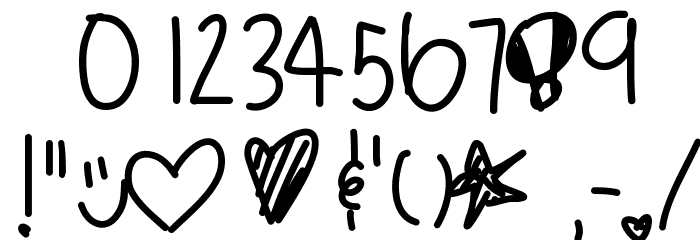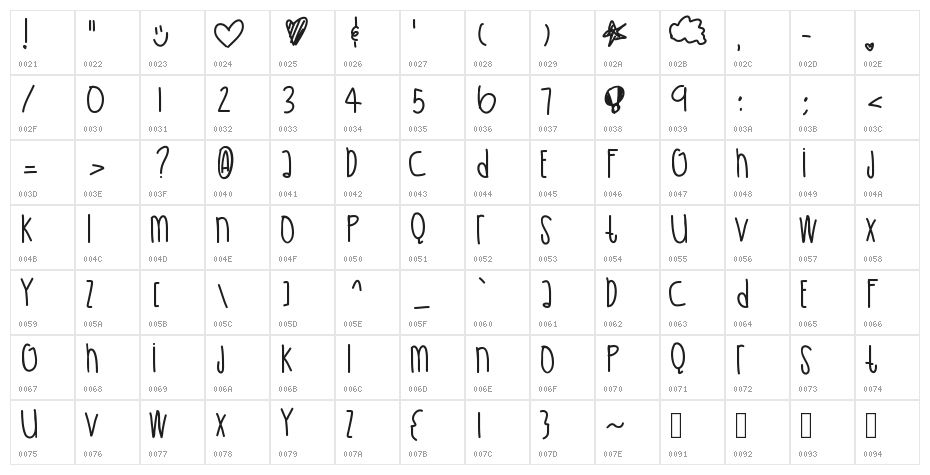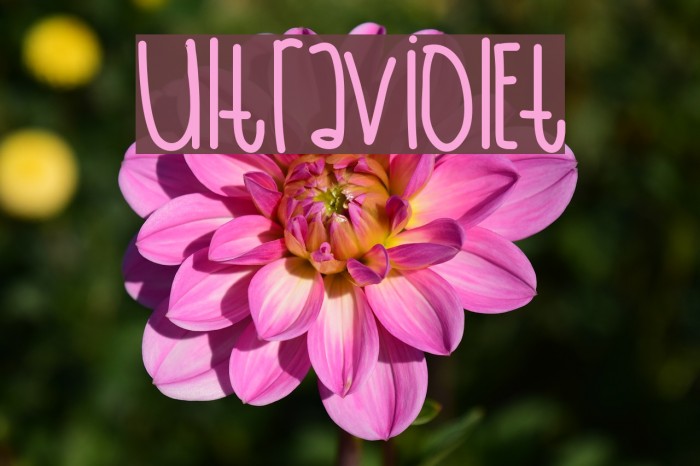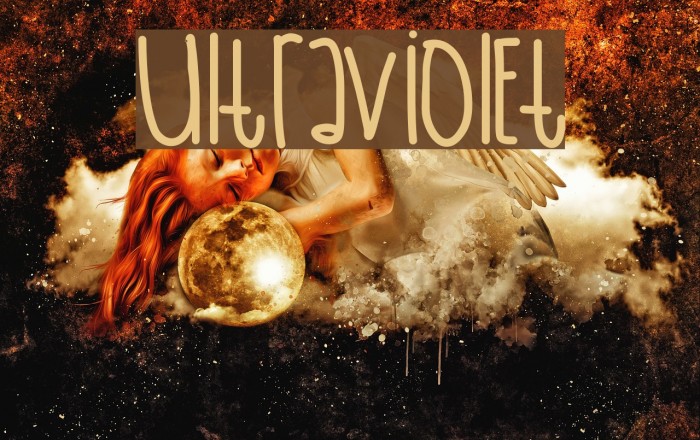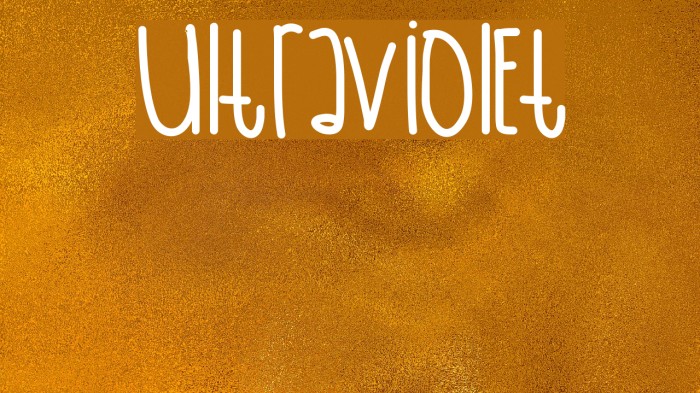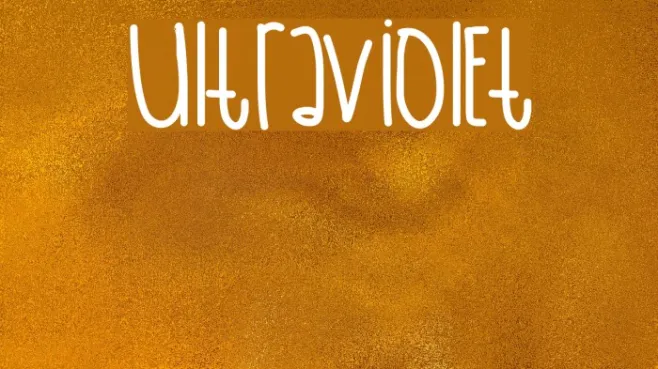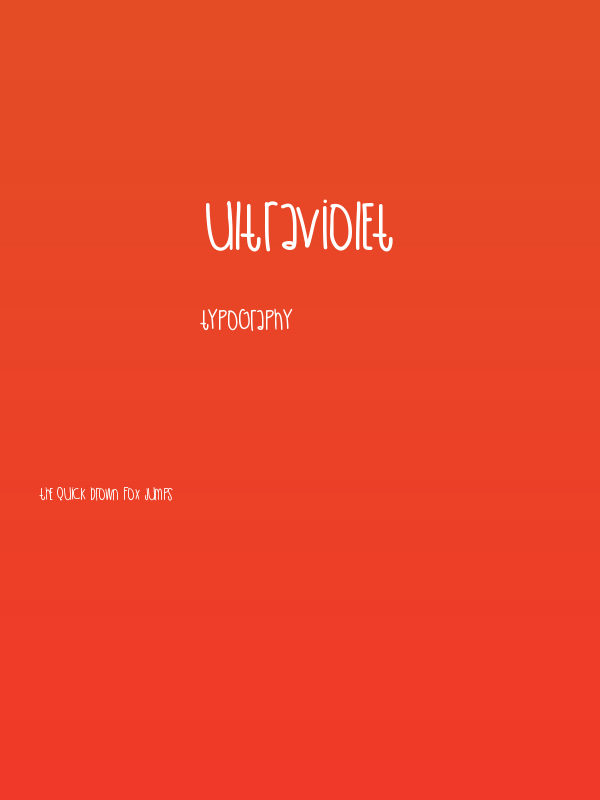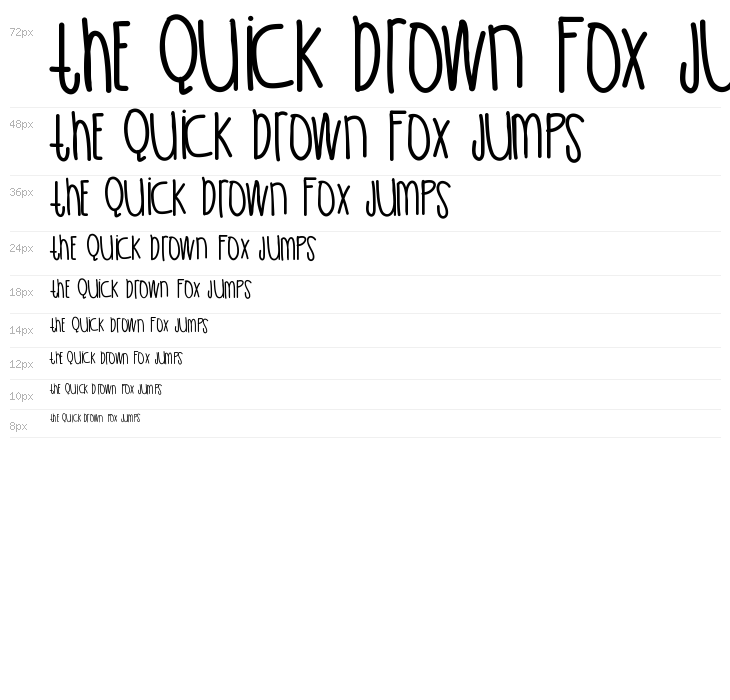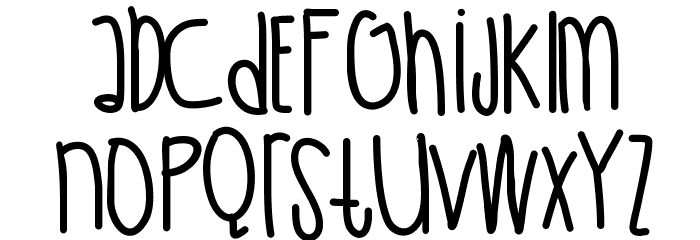
UltraViolet Font
This font exhibits a playful and whimsical style with elongated, narrow letterforms. The characters have a hand-drawn appearance, featuring smooth, rounded edges and a consistent stroke width. The uppercase and lowercase letters maintain a cohesive look, while the numbers and special characters add a touch of creativity with their unique shapes. The overall design is informal and friendly, making it suitable for projects that require a personal touch or a casual vibe.
Overall StylePlayful
Use CaseHeadlines, Logos, Informal Text
Proposed ProjectsIdeal for children's books, greeting cards, playful branding, and casual invitations.